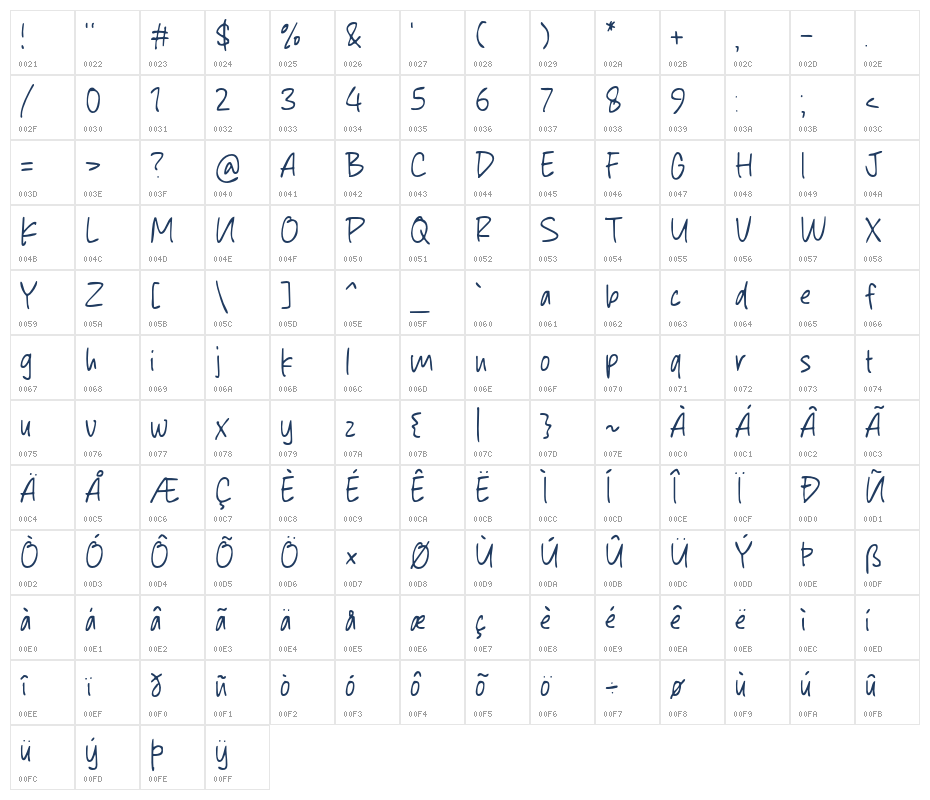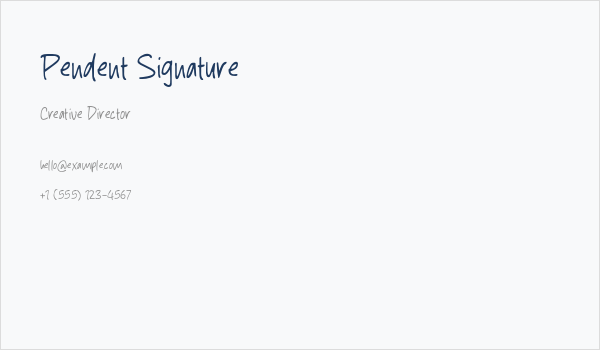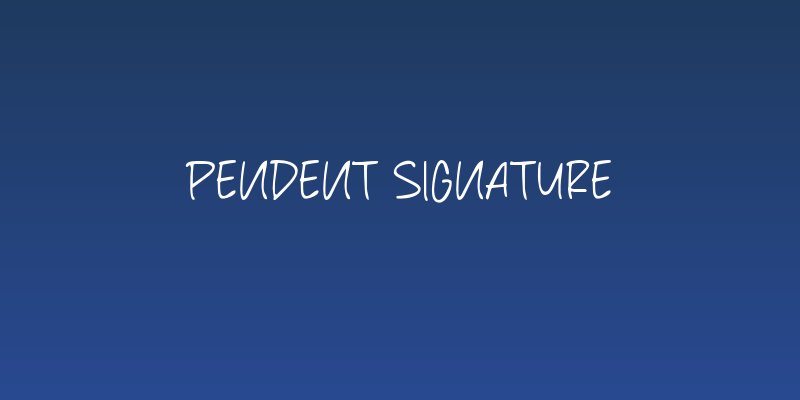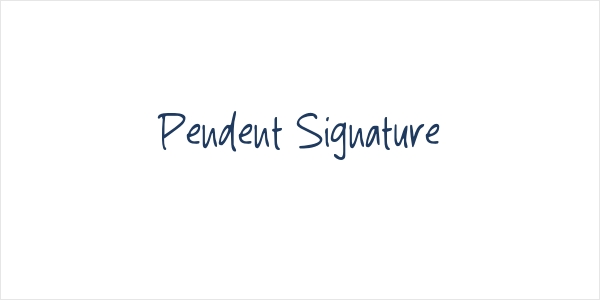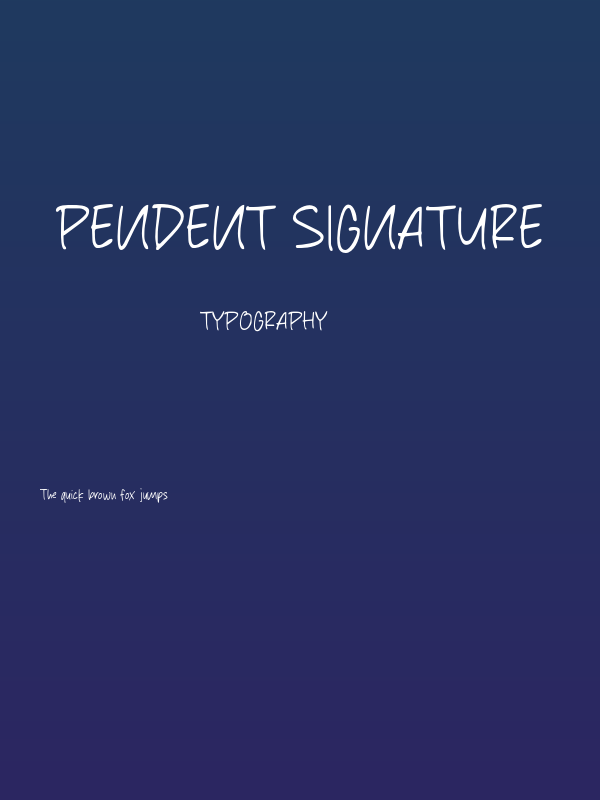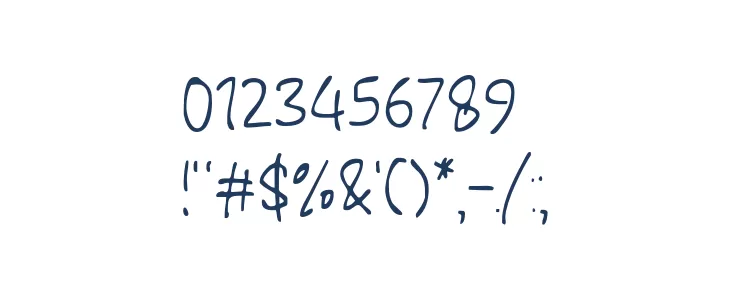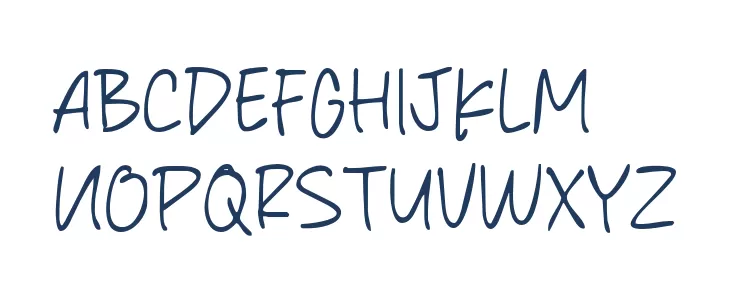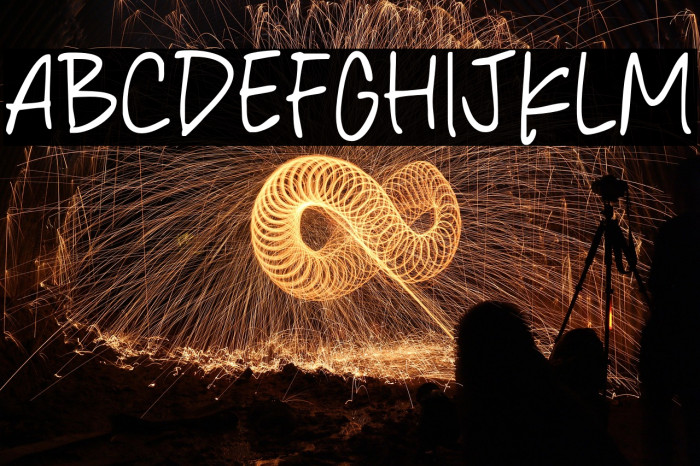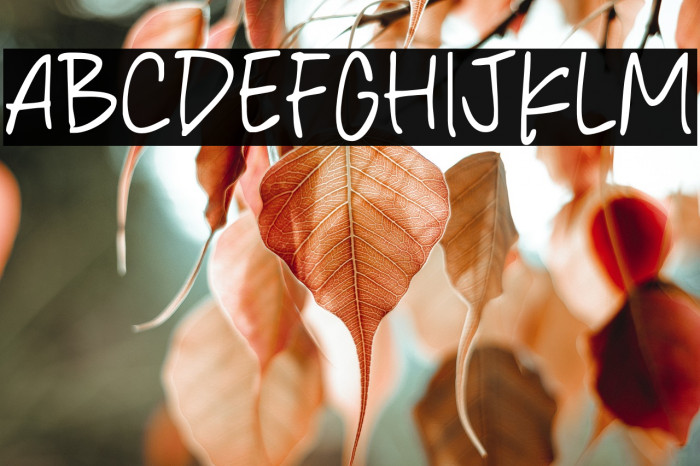
Pendent Signature Font
Pendent Signature Description
A casual, handwritten script font with a playful and informal style, featuring slightly irregular strokes and a friendly appearance.
| Overall Style | Casual, Friendly, Handwritten |